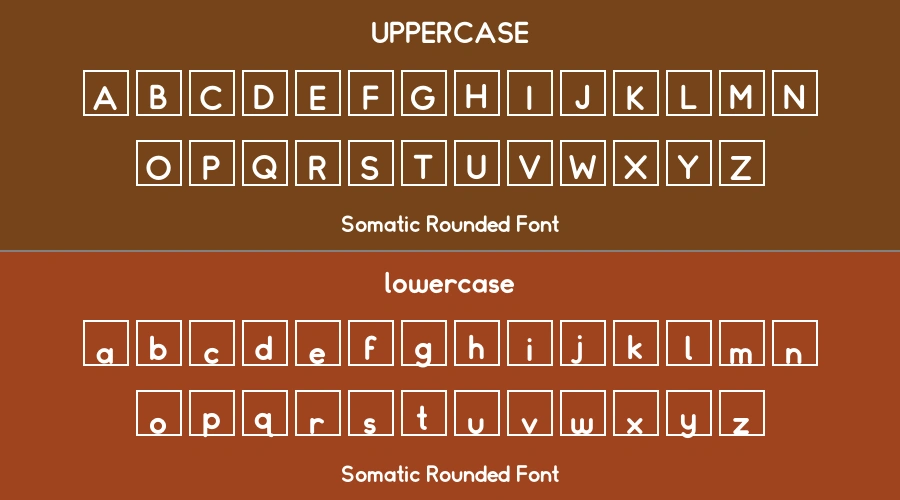
About Somatic Rounded Font
Somatic Rounded Font stands out for its distinctive combination of rounded corners and clarity. Ideal for mobile applications, it provides the clarity and technical merit that professional projects demand. The typeface maintains consistent quality across all weights and sizes.
Key features include refined harmonious shapes and practical tabular figures, enhancing typographic expression. In marketing collateral applications, Somatic Rounded Font demonstrates exceptional print fidelity. The crossbar height and artistic merit contribute to its distinctive character and professional appeal.
Somatic Rounded Font |